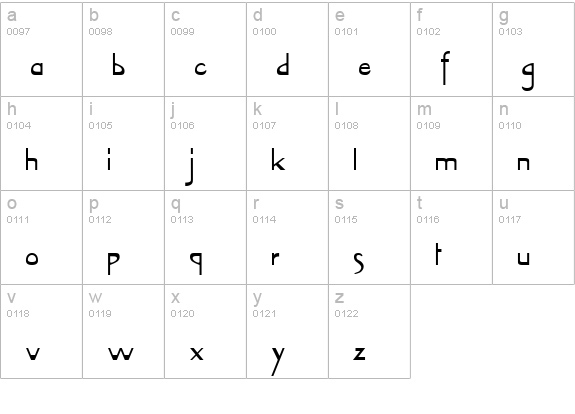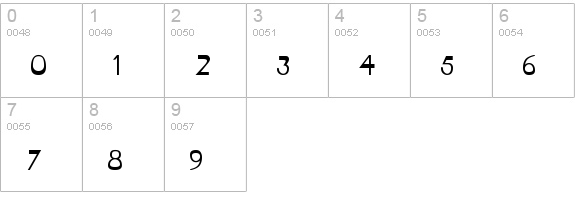
Tablet Normal is the standard, neutral variant in the Tablet typeface family \xE2\x80\x94 well suited to general body text, paragraphs, and standard typographic work.
Introducing Tablet Normal font, the perfect blend of modernity and simplicity. This versatile typeface is designed to enhance any project, whether it's a website, poster, or logo. Tablet Normal font features a clean and elegant aesthetic, making it suitable for both professional and creative endeavors. With its smooth lines and balanced letterforms, Tablet Normal font exudes a sense of sophistication and professionalism. Its neutral design allows it to effortlessly complement any visual style or theme, making it a versatile choice for designers and creatives alike. What sets Tablet Normal font apart is its accessibility - it is freely available to download at FontsMarket.com. This means that you can effortlessly incorporate this font into your designs without any financial restrictions. Whether you're a seasoned designer or just starting out, Tablet Normal font offers a seamless and hassle-free experience. Its legibility and readability make it a reliable choice for any project, ensuring that your message is conveyed clearly and effectively. So why wait? Download Tablet Normal font for free at FontsMarket.com and elevate your designs to new heights. Discover the endless possibilities that this font brings, and let your creativity flourish.